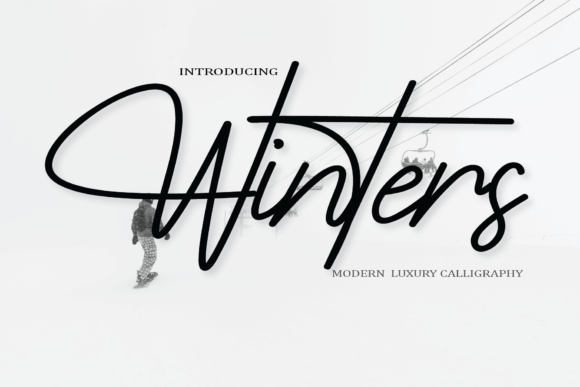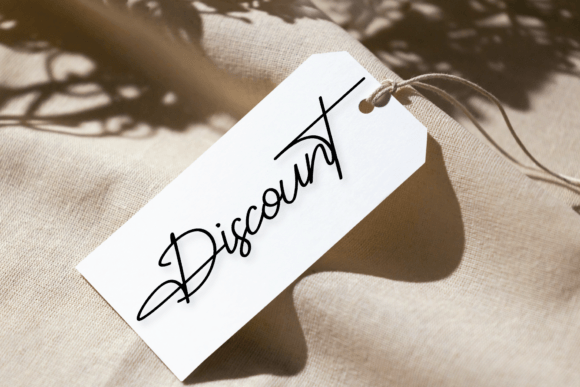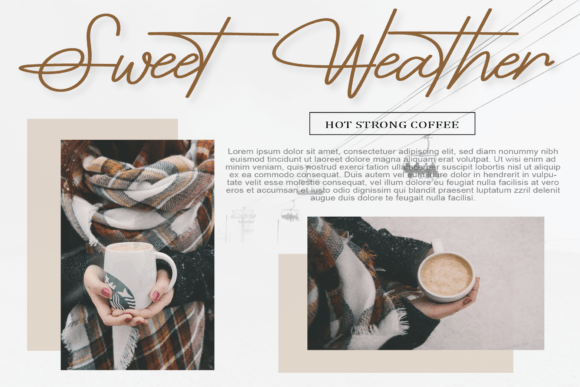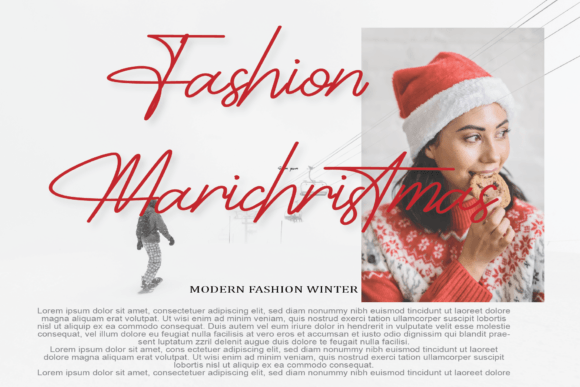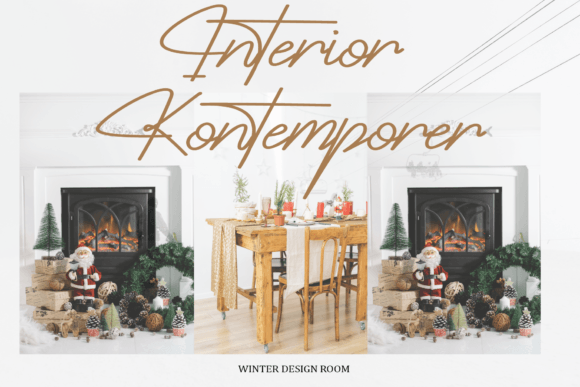
Winters Font
About Winters Font
Winters is a delicate and elegant handwritten font. Its distinct and well-balanced letters make this font a masterpiece. Fall in love with its incredibly versatile style and use it to create spectacular designs!